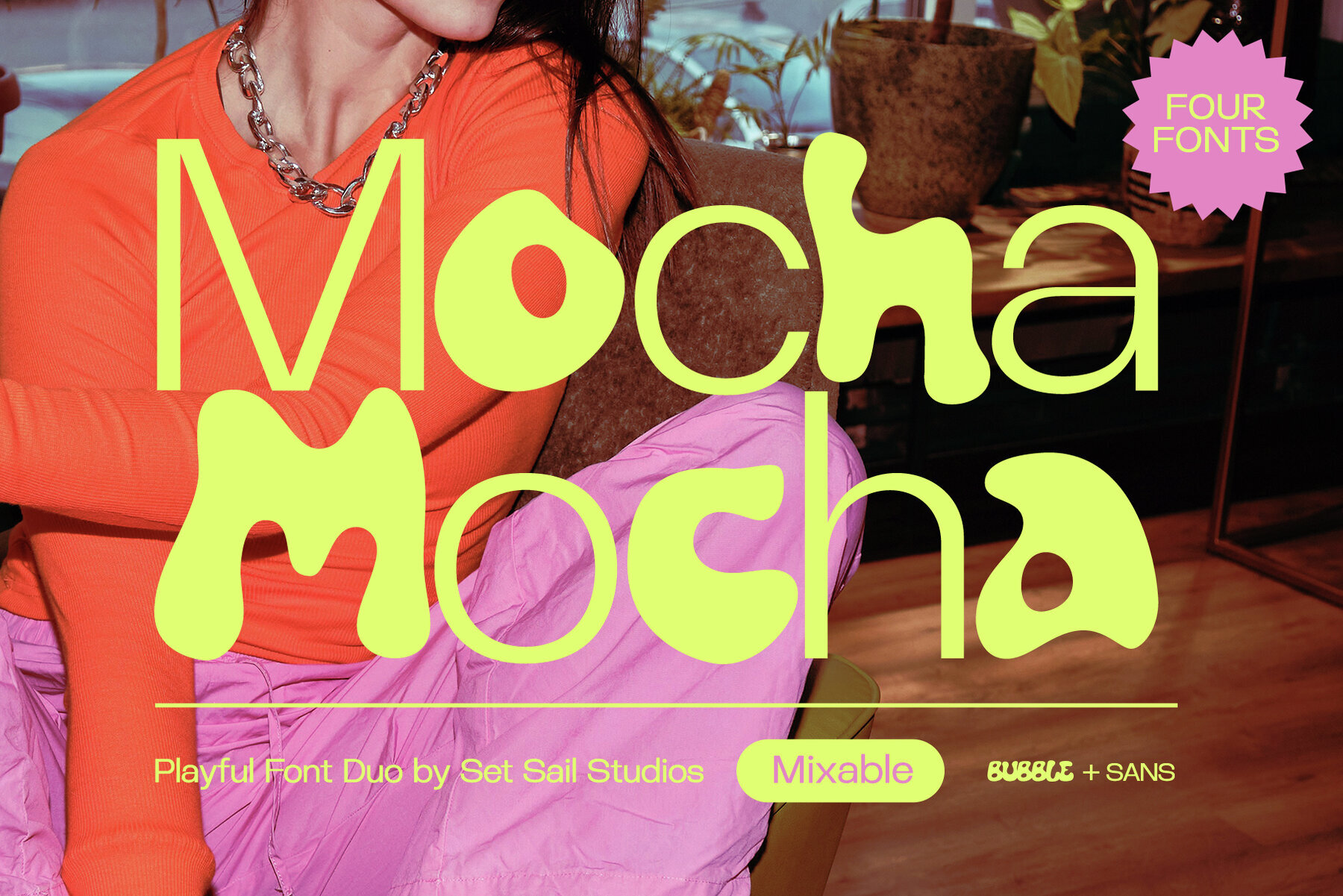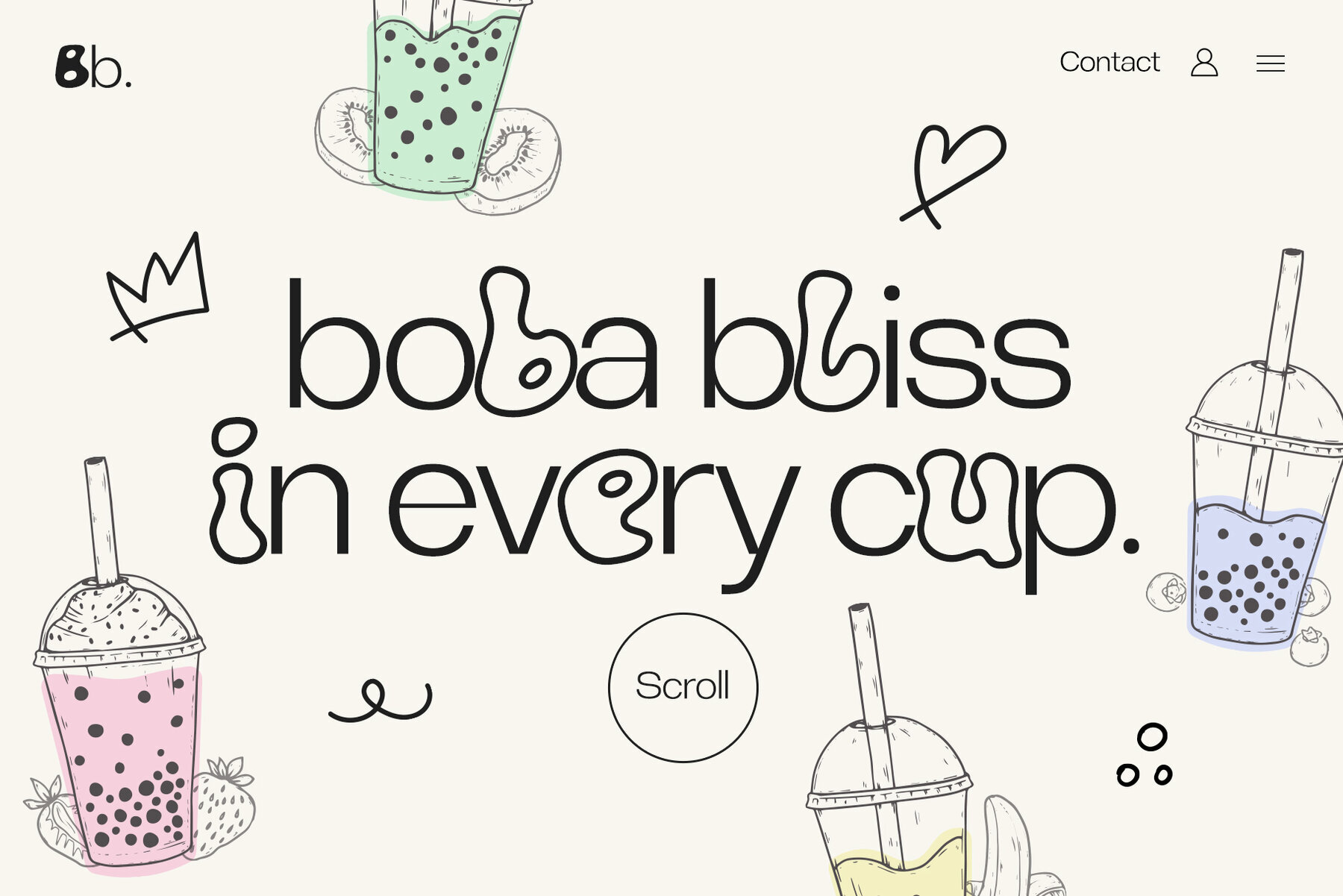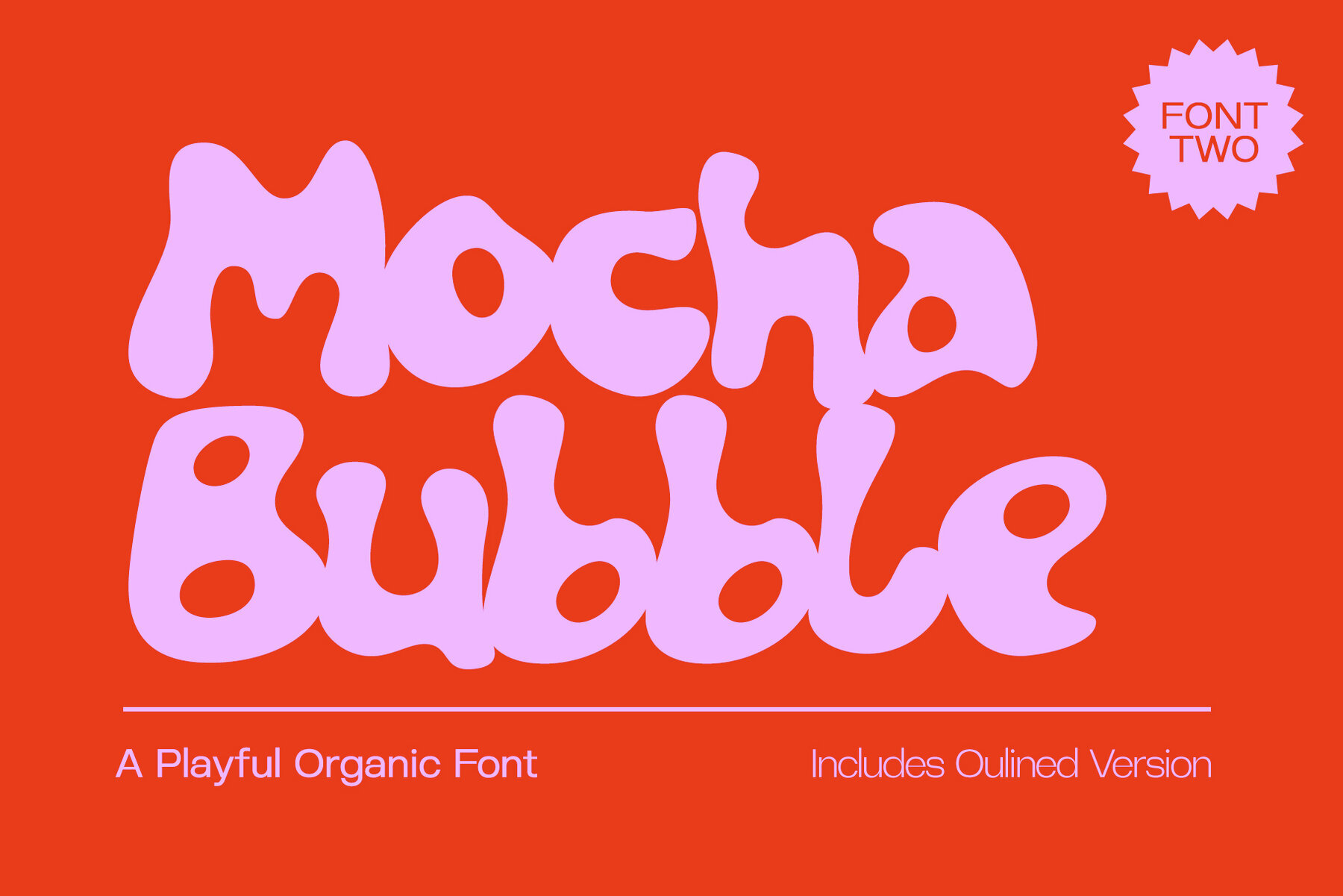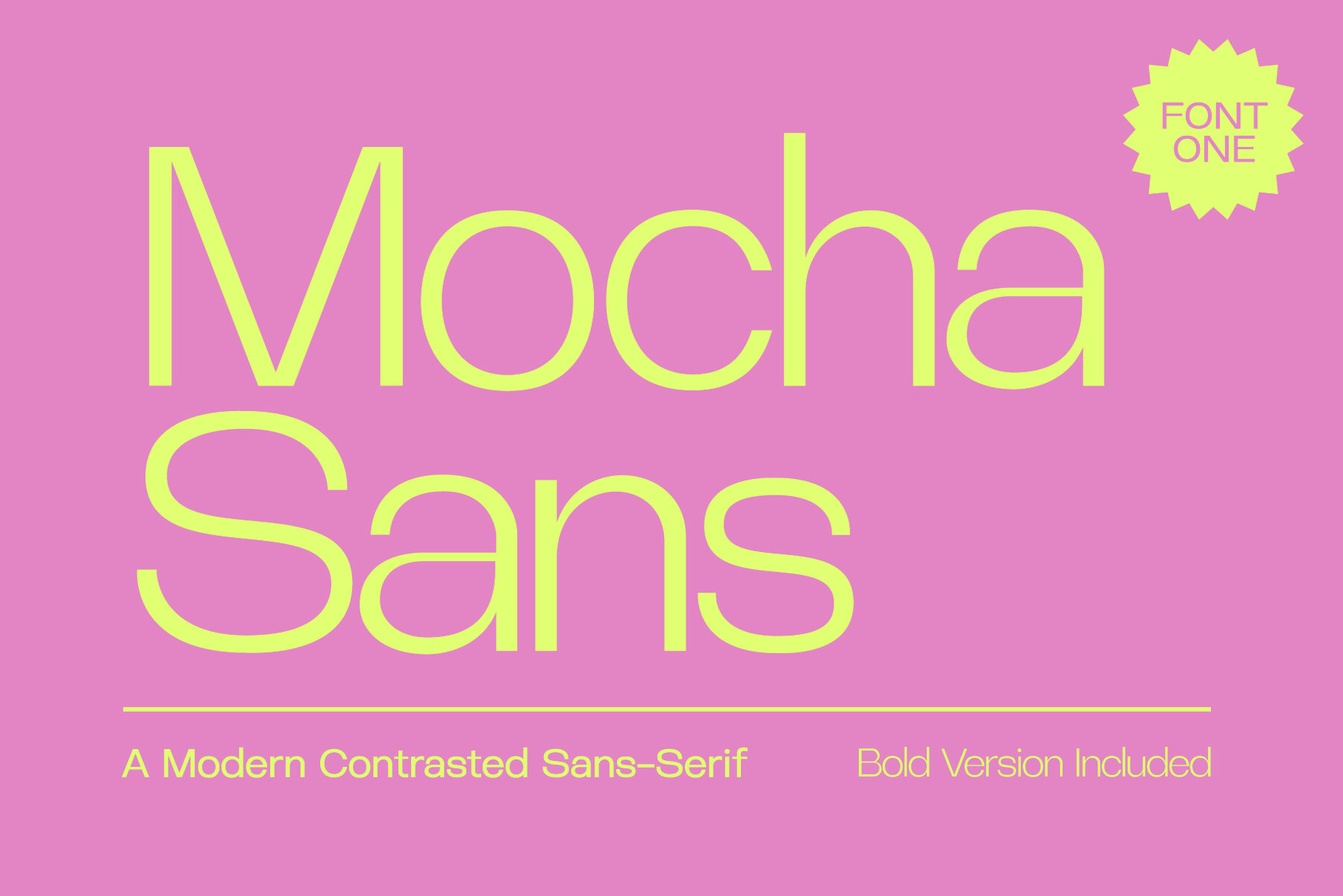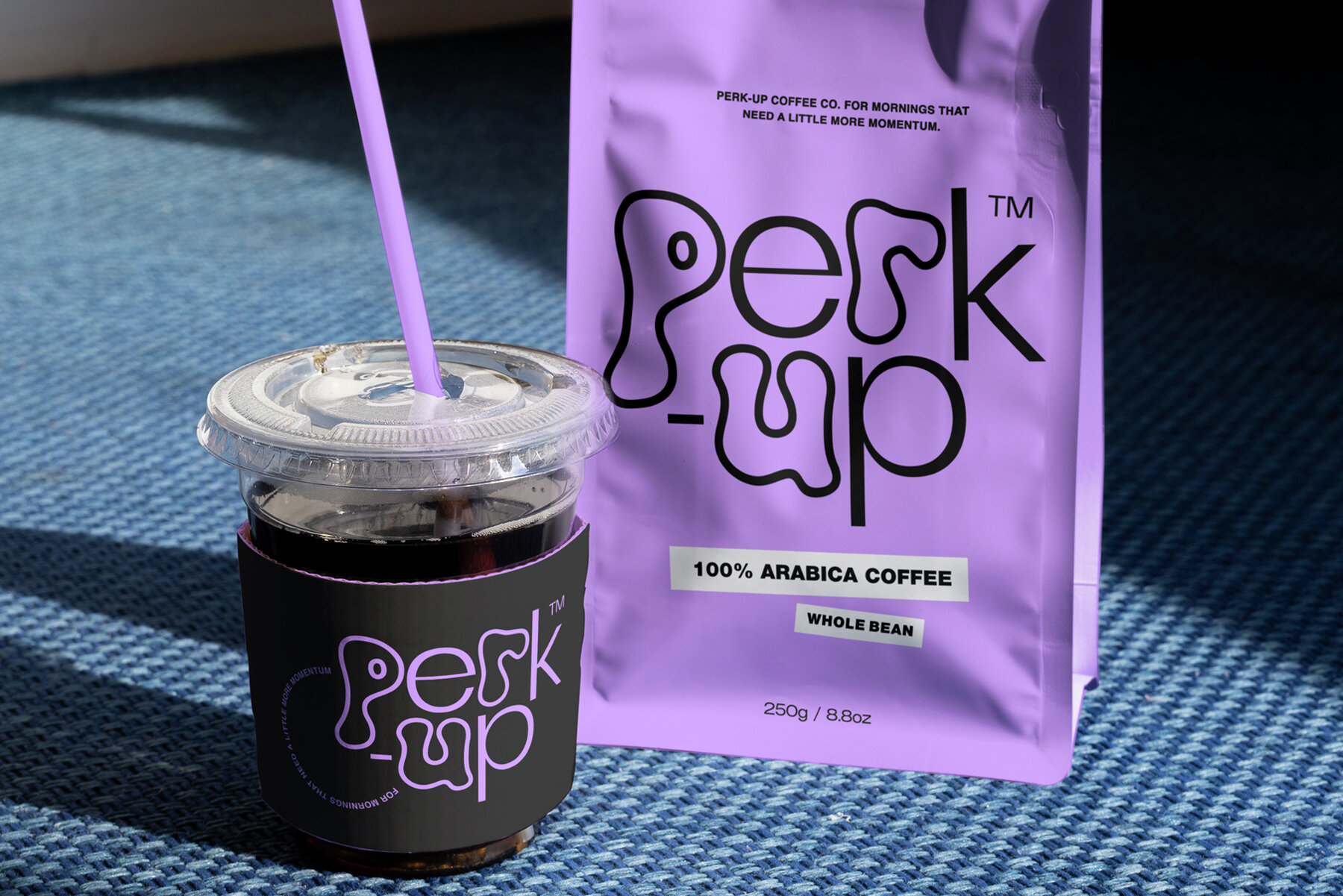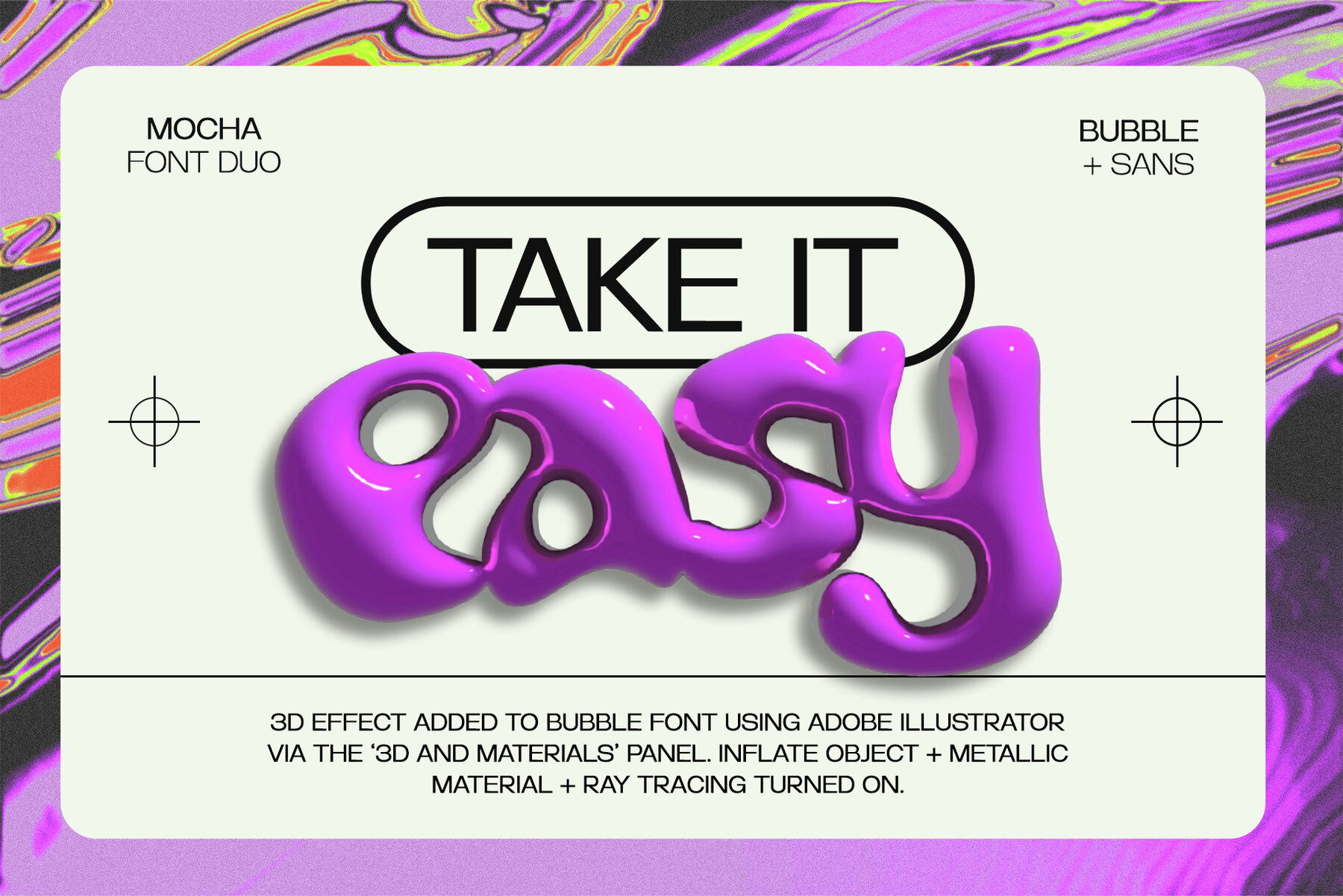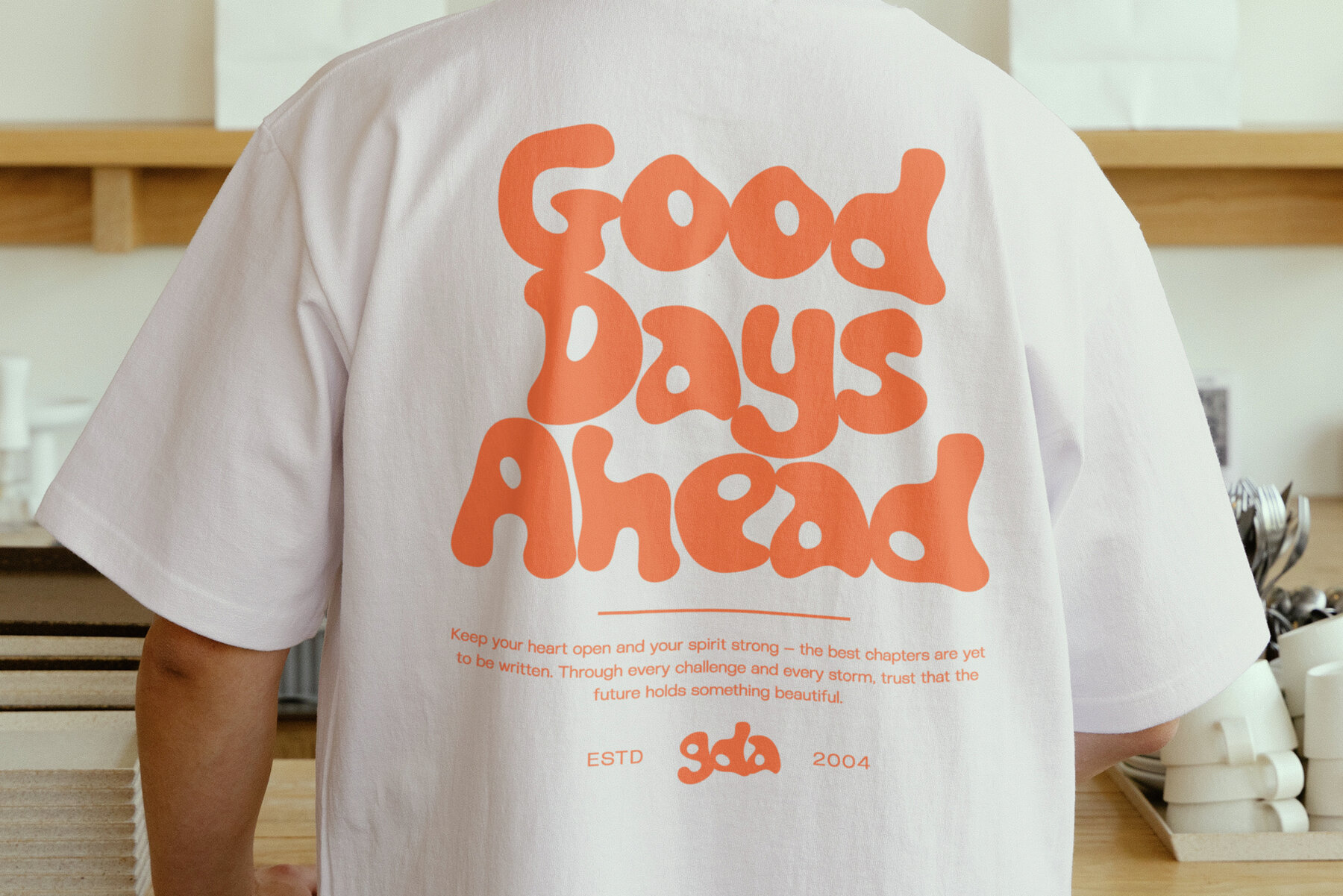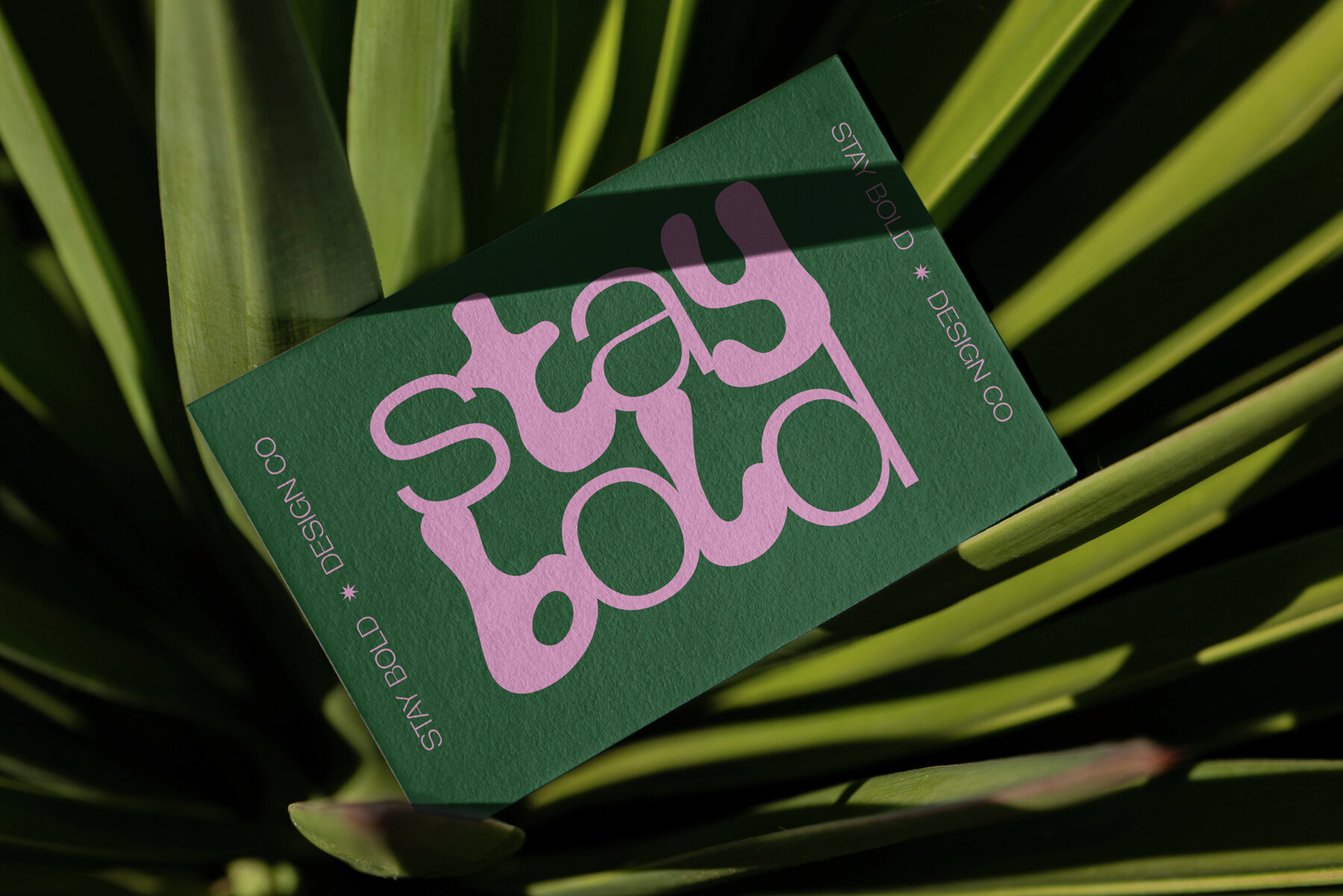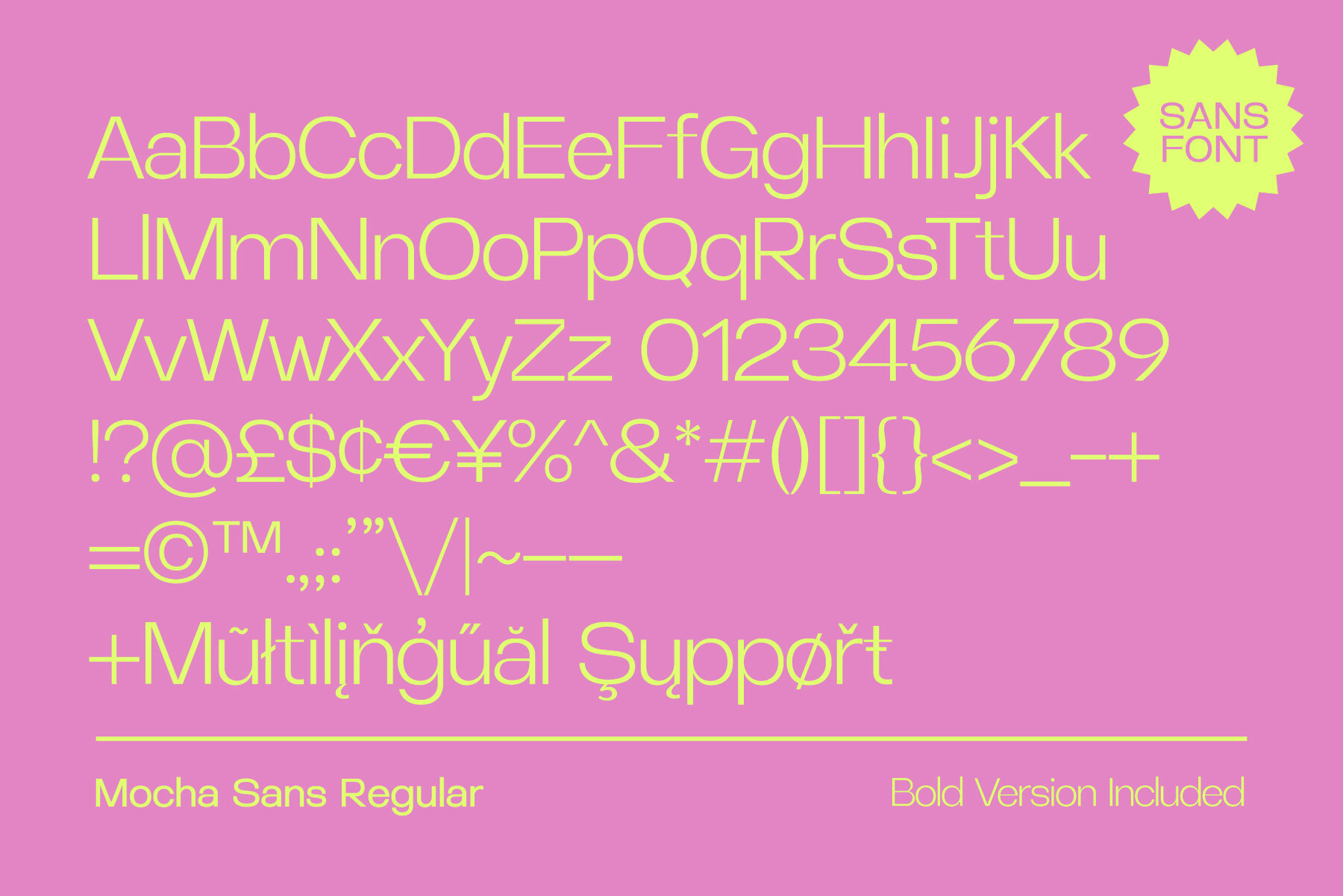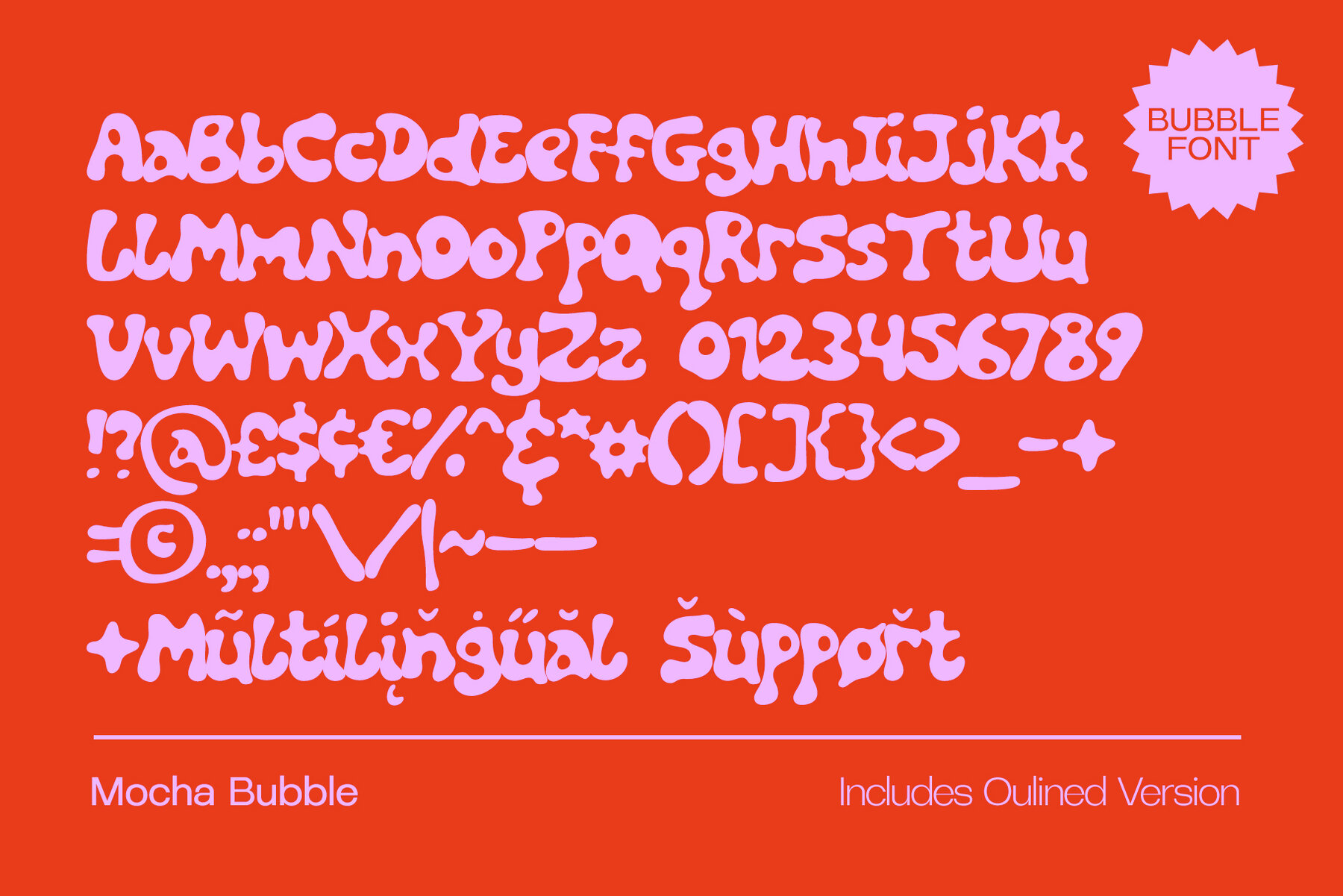
Mocha Font Duo
Mocha Sans Bold
Mocha Bubble
Mocha Outline
Mocha Sans
The Mocha Font Duo presents a delightful combination of Bubble and Sans fonts, designed to infuse modern, trendy, and whimsical typography into any design project. These carefully crafted fonts perfectly complement each other with their contrast in weight and similarity in height and width. While each font stands strong on its own, the true magic unfolds when they are mixed together. The inclusion of bold and outlined versions expands the creative possibilities, whether utilized side-by-side or within the same word. Features: Language Support: Each font supports a wide array of languages including English, French, Italian, Spanish, Portuguese, German, Swedish, Norwegian, Danish, Dutch, Finnish, Indonesian, Malay, Hungarian, Polish, Croatian, Turkish, Romanian, Czech, Latvian, Lithuanian, Slovak, and Slovenian.Mocha Font Duo: A Playful Typography Pairing